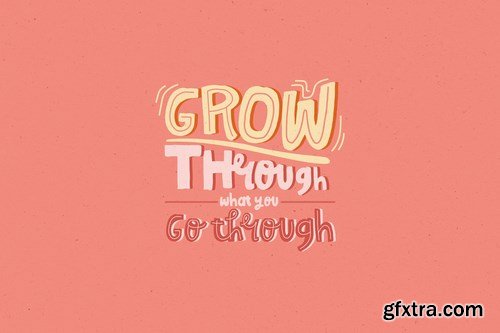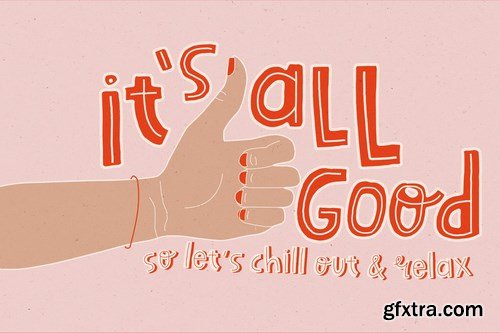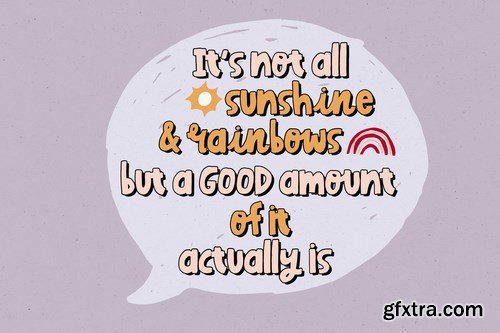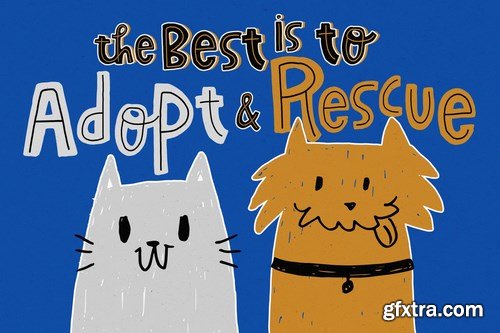
Jack & Robin is a fancy lettering font with a 2 options that you can play with to create various results. Jack & Robin makes a perfect font for your any design project, especially children illustration work!
The font contains ligature option and accented character for international language (check preview images to see which glyphs are included).
Jack & Robin Features:
Lettering Style Font
2 Options: Regular & Hairline
Ligature Option
Accented Glyphs for Multilingual Purpose